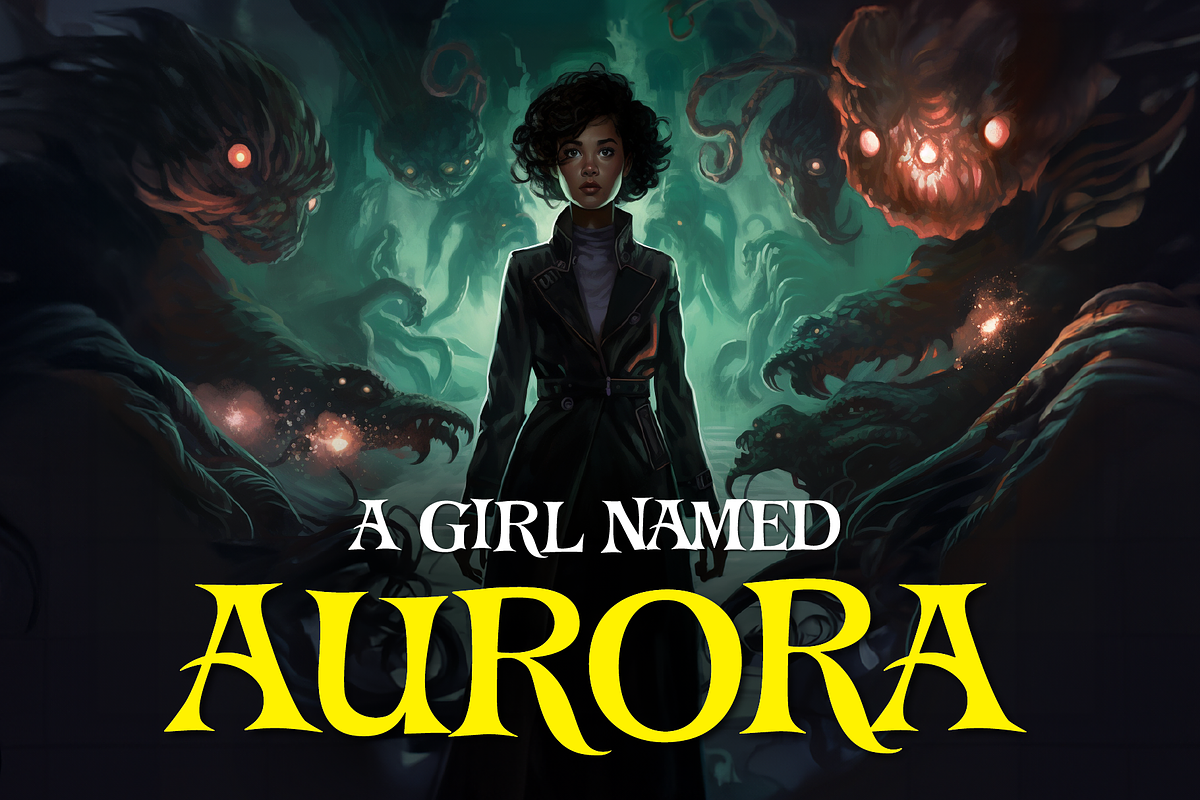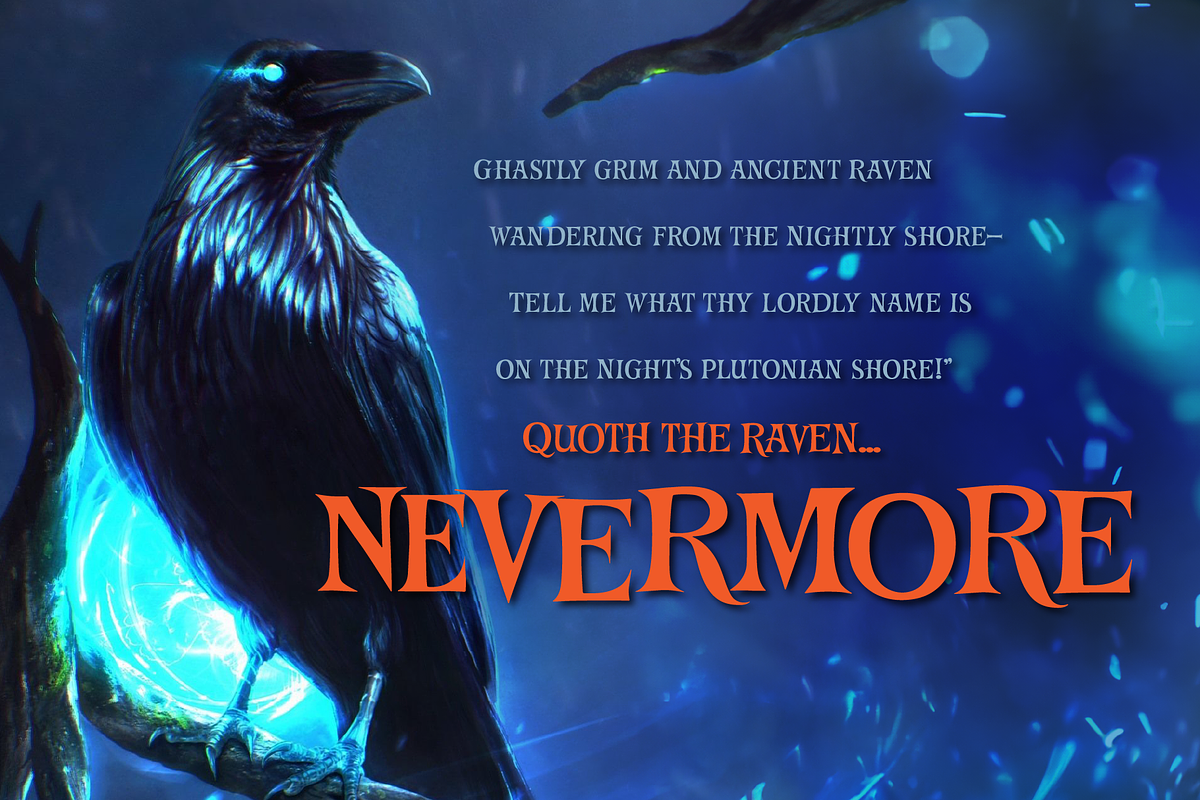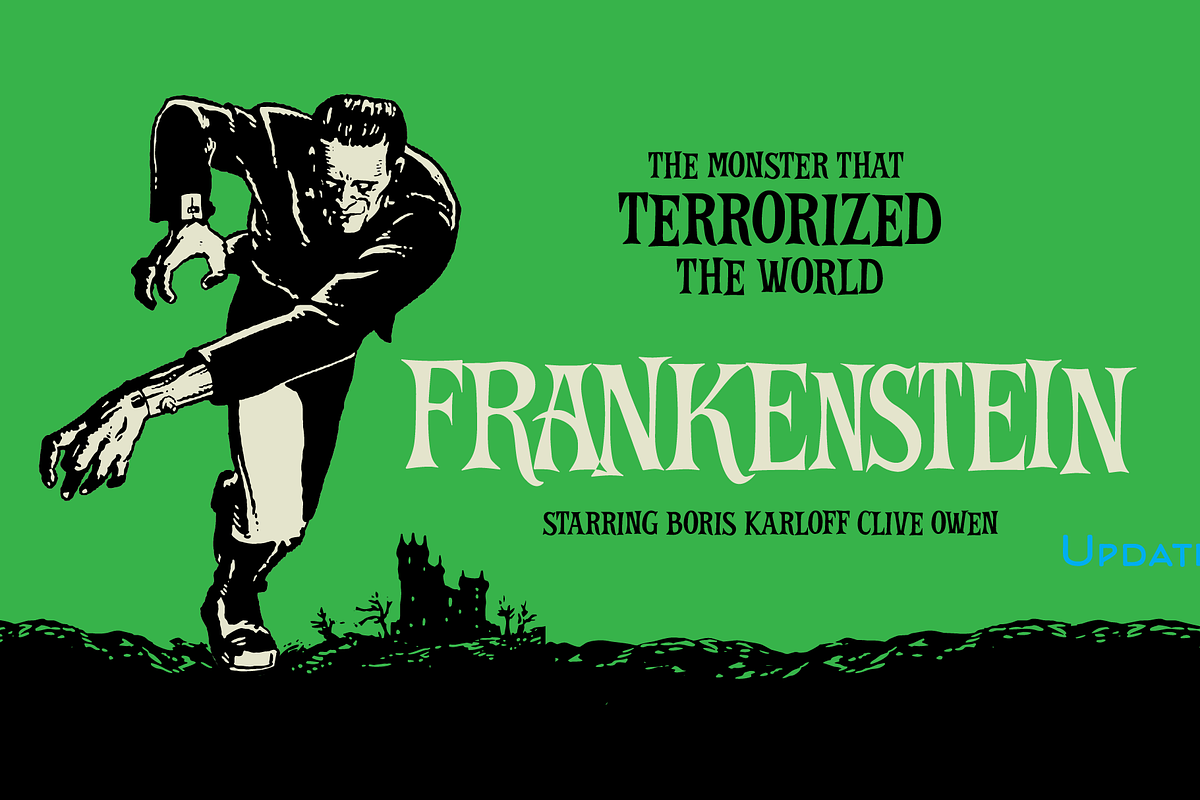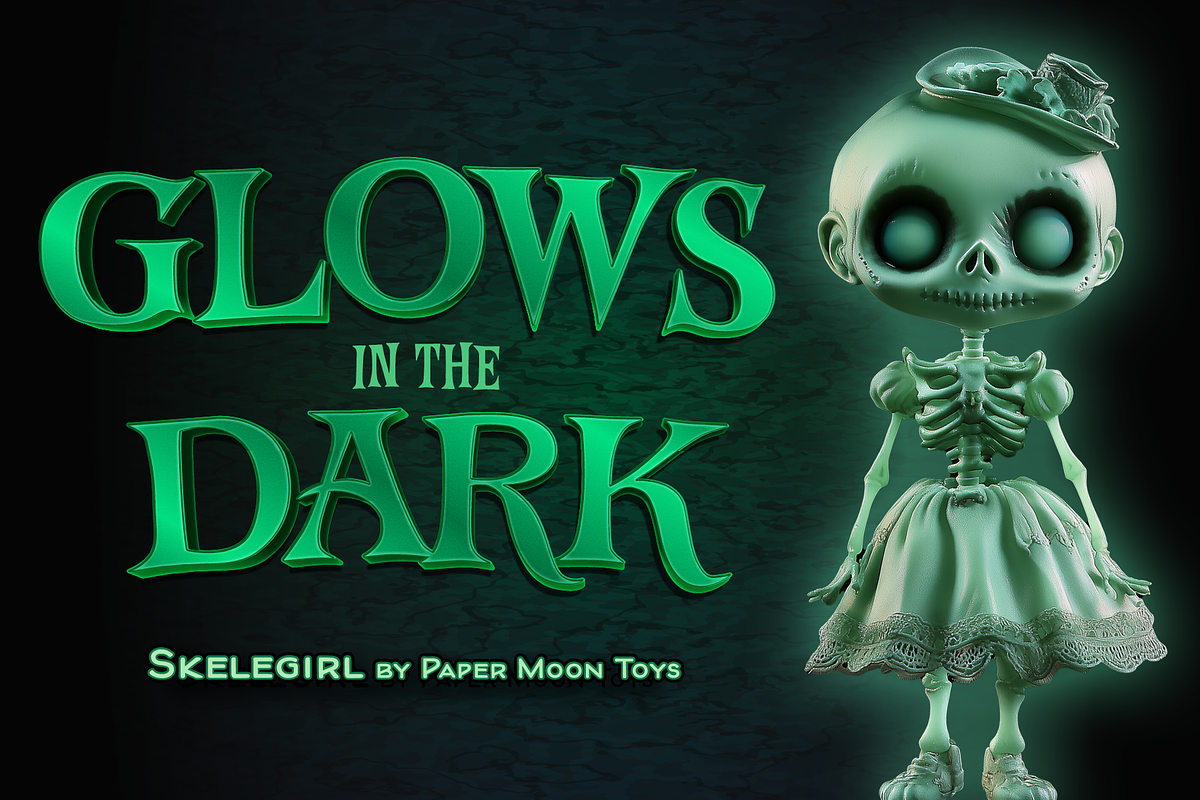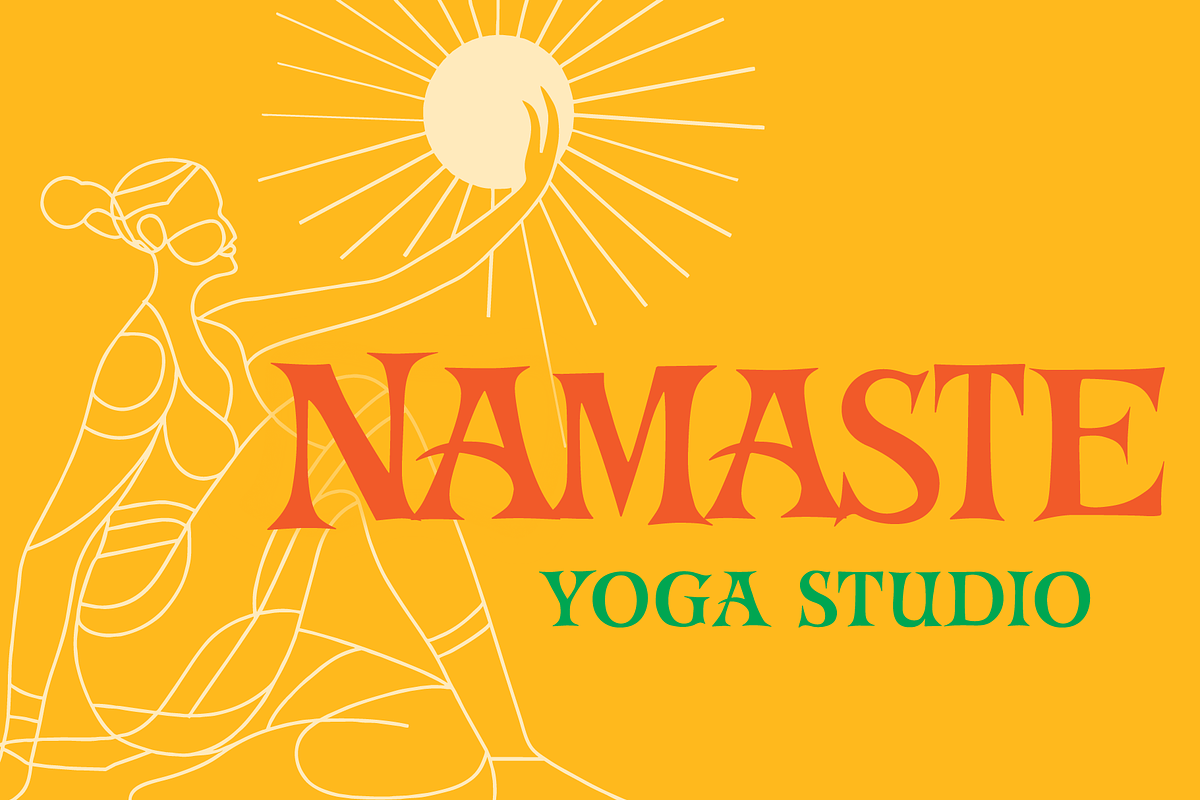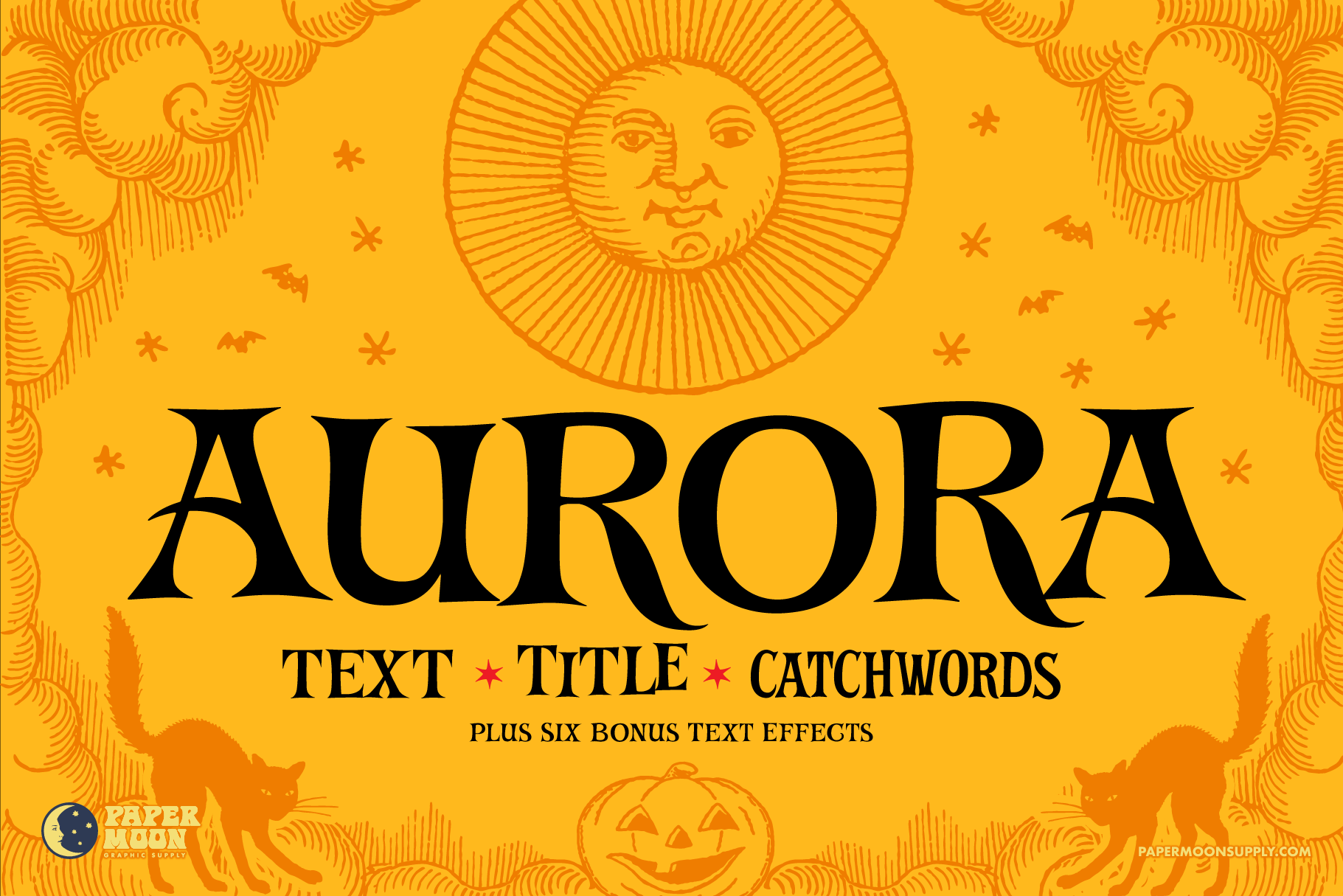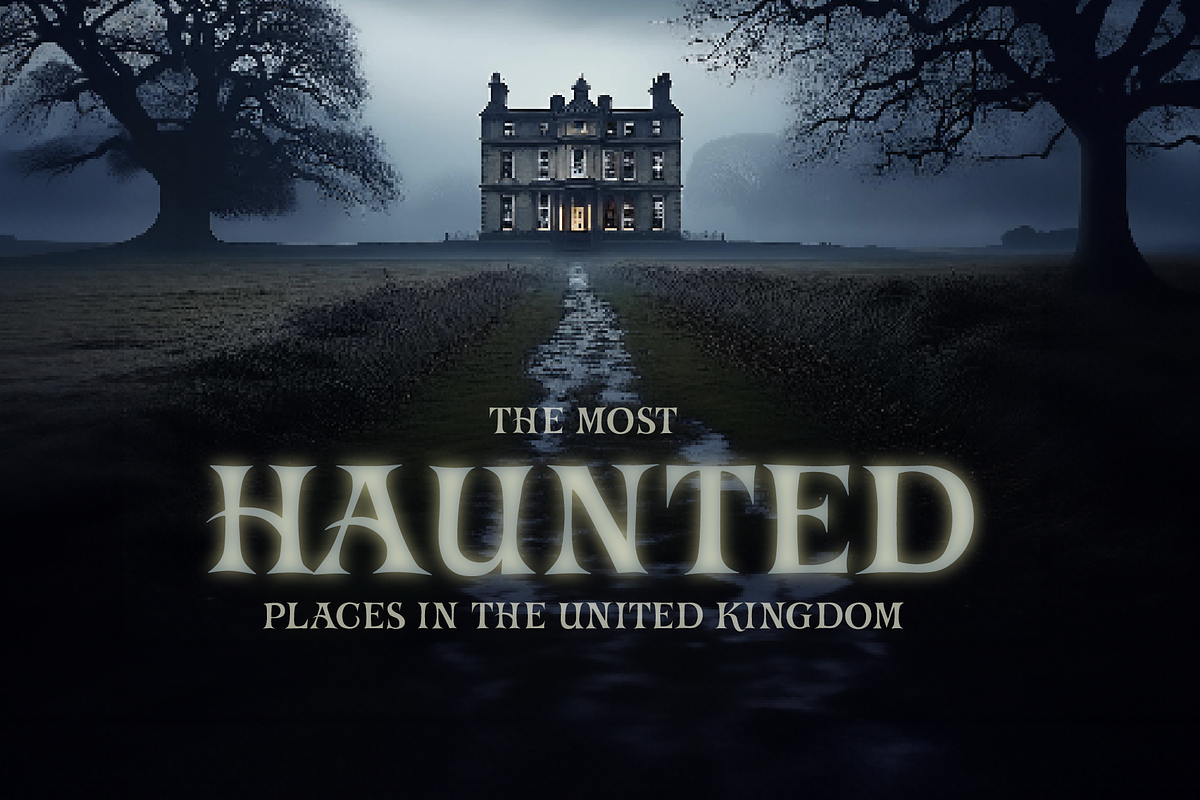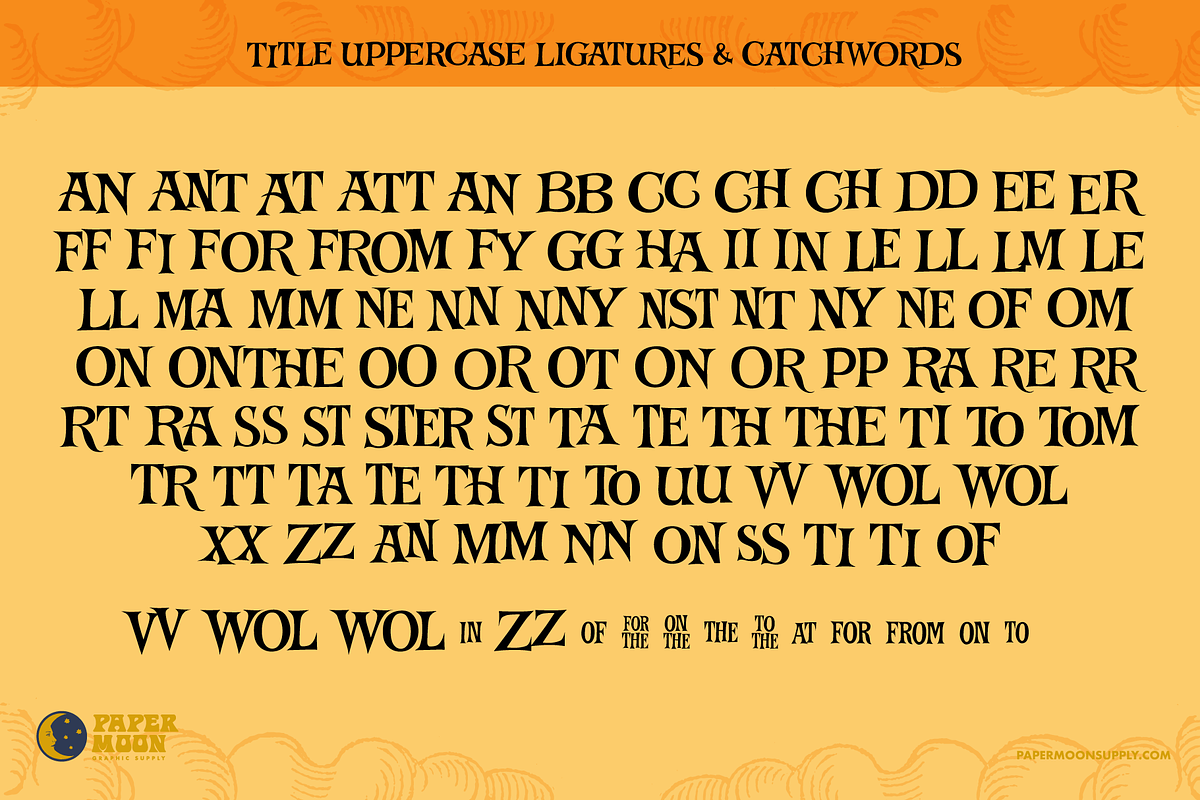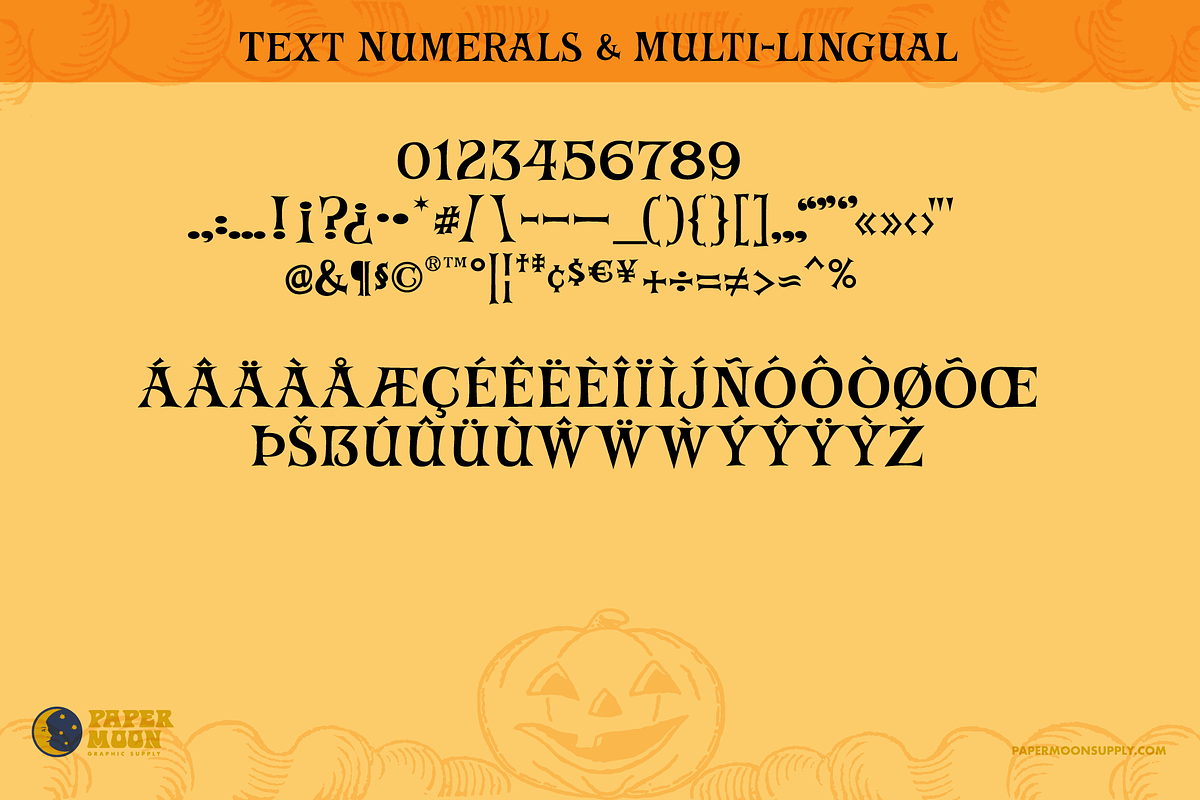
PM Aurora Casual Serif Font
PM Aurora - A new casual serif font from Paper Moon Graphic Supply
PM Aurora font family is a serif typeface system with personality. The system includes: Title for headlines and logos, Text for body copy, and Catchwords for creating custom text conjunctions like "of the."
Its pointiness gives it an eldritch vibe, but it can be lightened up for use in anything from coffee shop branding to a yoga studio logo.
It's also designed to work exceptionally well with vector text effects (graphic styles) to give it even more personality and includes six specifically intended for use.
- Three complete fonts: Title, Text, and Catchwords
- Complete alphabet, number, and punctuation sets
- Tons of ligatures for customization
- Optimized for OpenType with stylistic and contextual alternates
- Six editable live-text effects (graphic styles)
PM Aurora was developed by award-winning illustrator and designer Scott Banks.